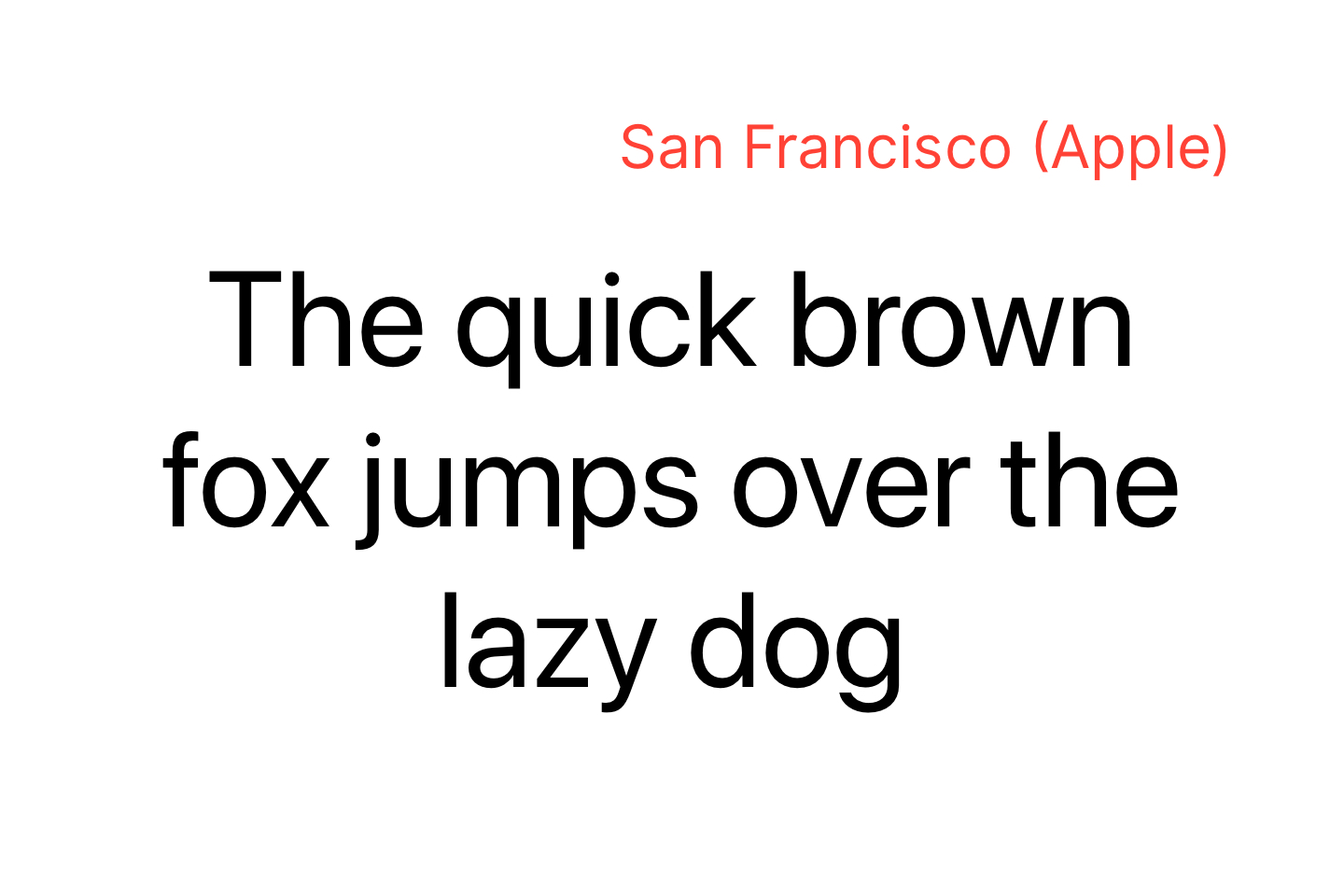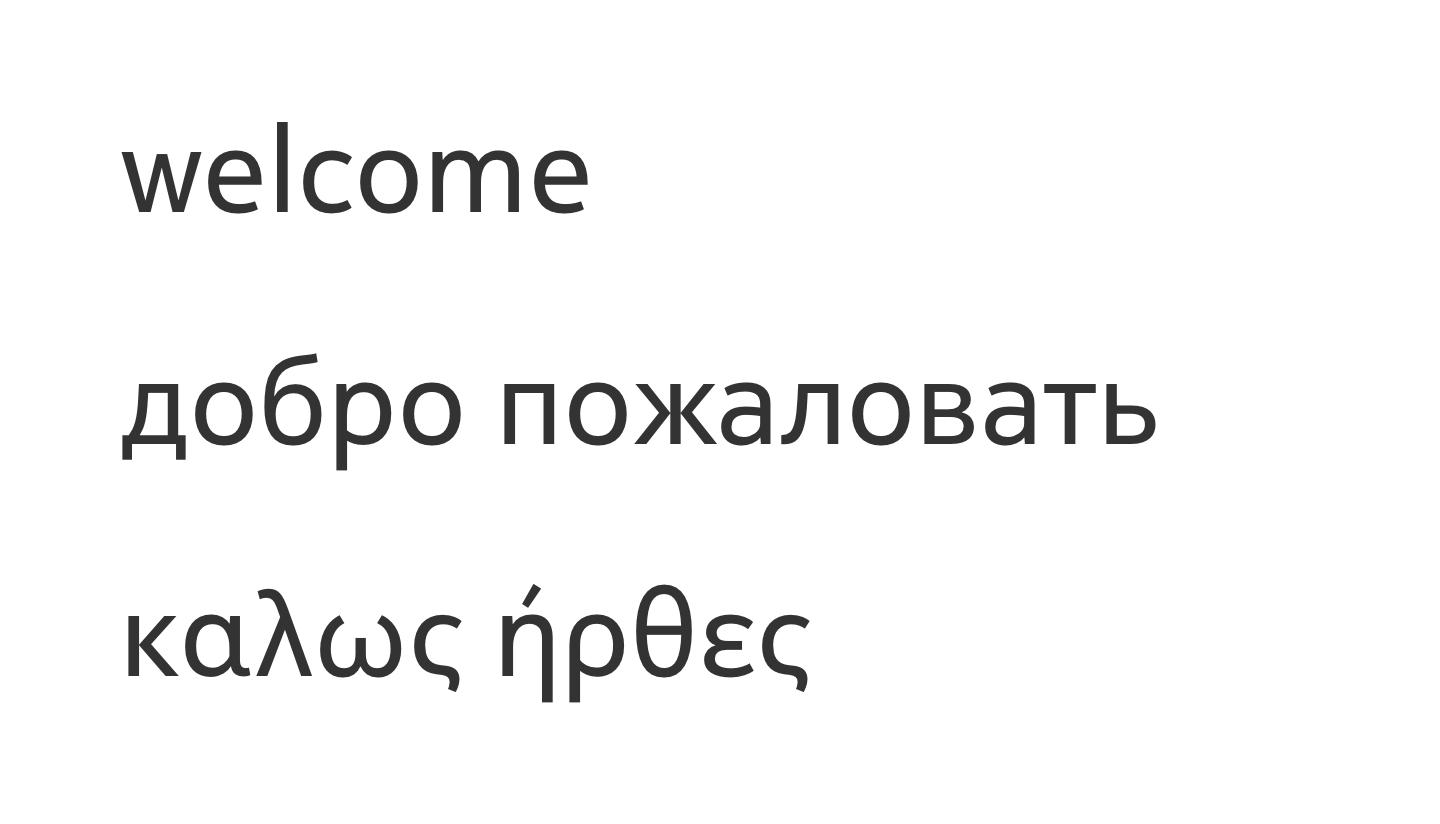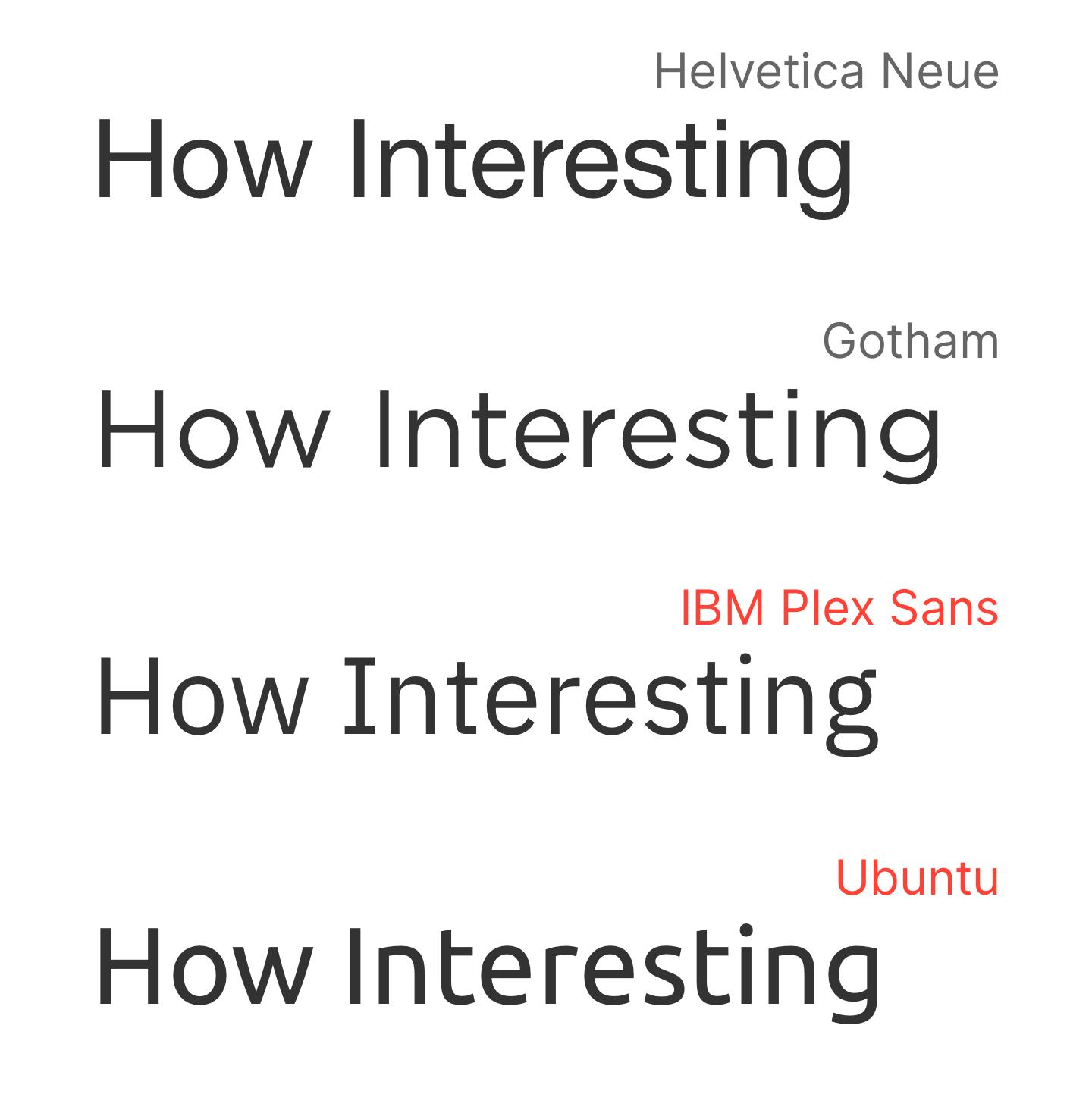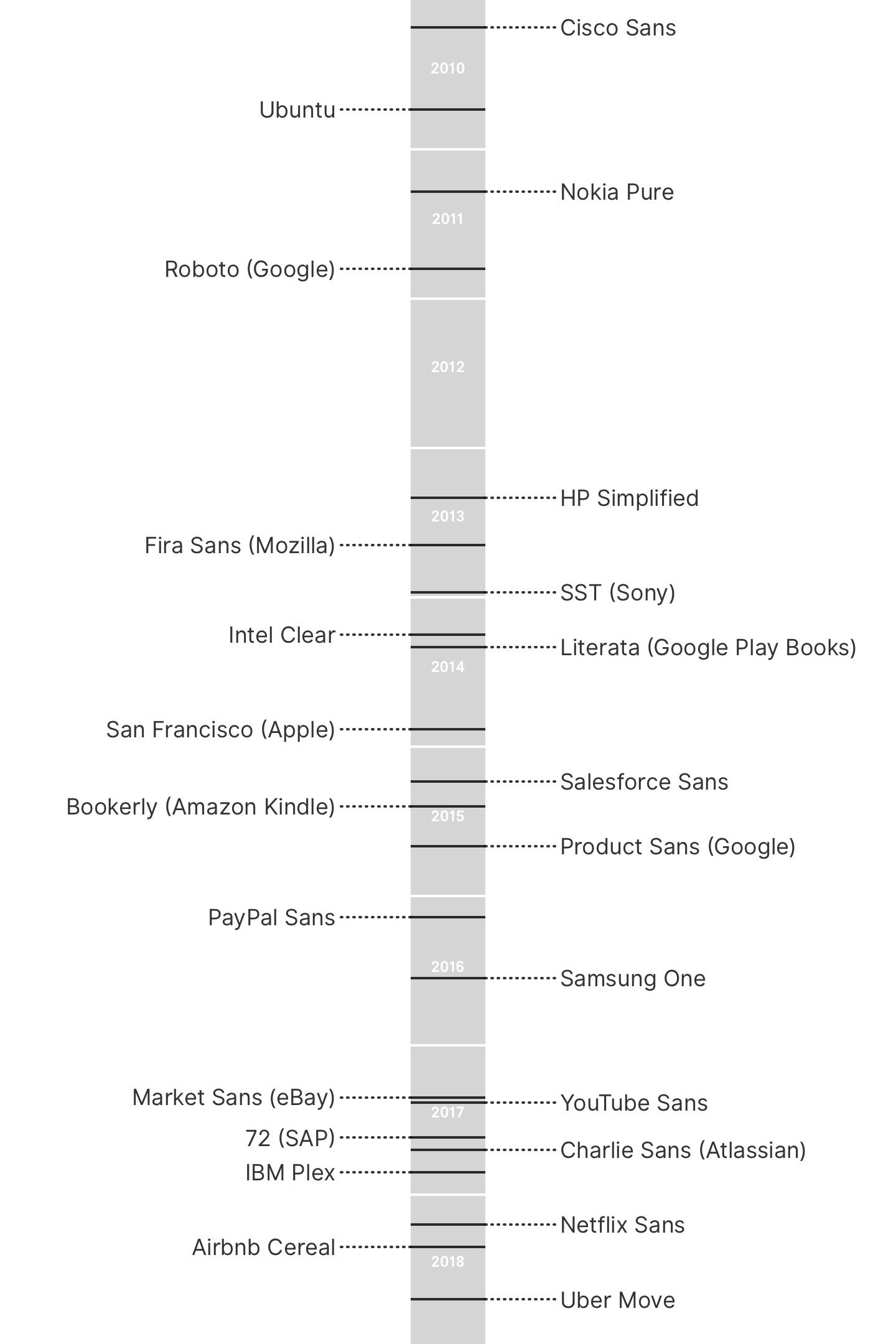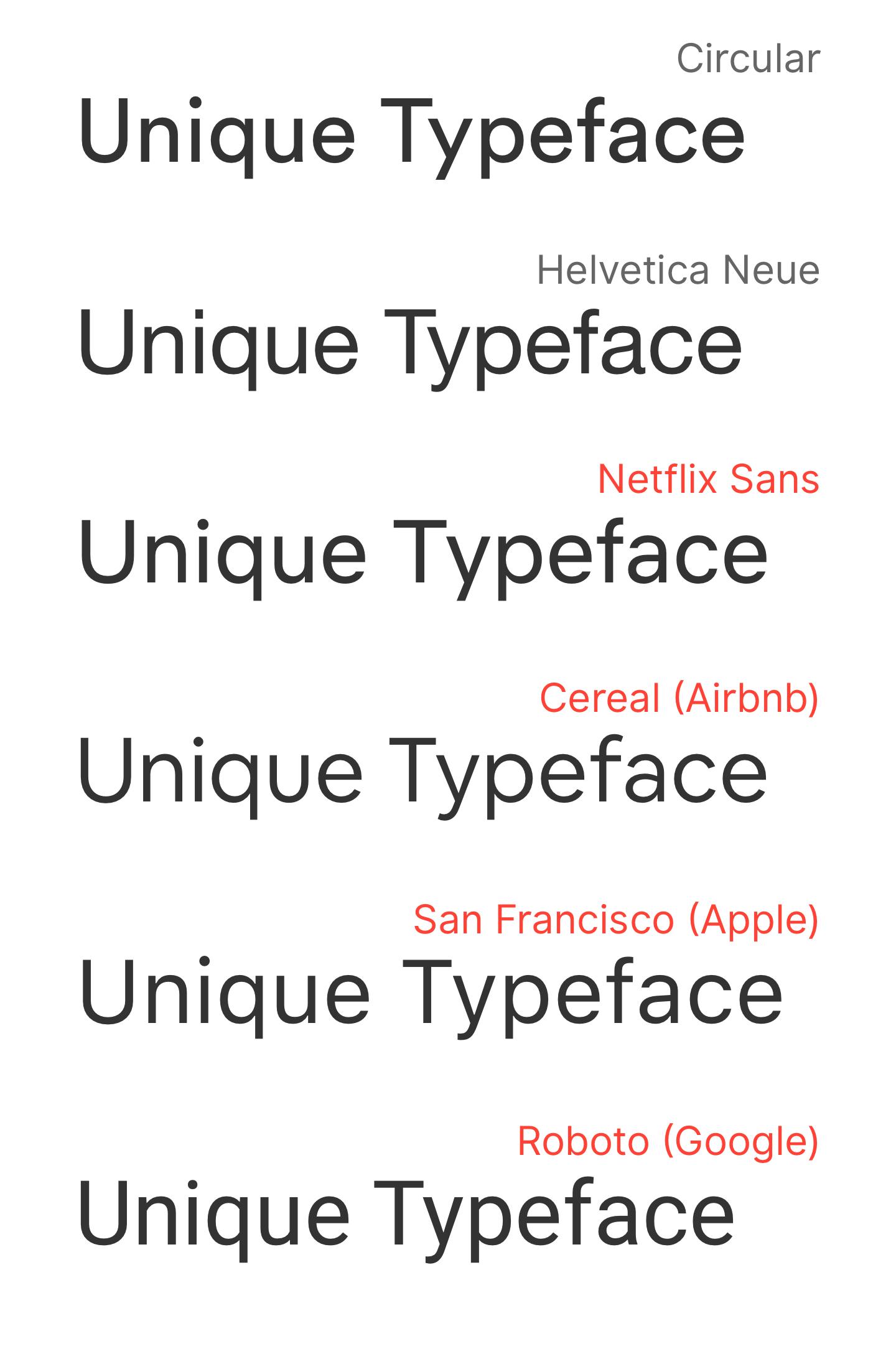
Why are tech companies making custom typefaces?
More than graphic design, typography is an expression of technology, precision and good order. Typography is no longer concerned with meeting the lofty and difficult demands of art but with satisfying, formally and functionally, the everyday requirements of a craft.
― Emil Ruder[1]
For most of the last century, corporations have licensed their corporate typefaces from type foundries. Even as typesetting technology changed and the number of typefaces proliferated, custom typography was quite rare.
The idea of commissioning or creating a custom typeface for exclusive use by a single company or brand is relatively new in the history of typography. Erik Spiekermann argues that this is a result of the personal computer.
While it was possible, financially and technically, to design and produce a typeface exclusively for the use of one company, it was not really feasible. Once, however, the same personal computer that was used to design typefaces and produce fonts was also used as the main communication tool inside companies, it became easier to convince marketing and technical people alike that fonts were meant for more than the occasional campaign headline, and easier to implement than new versions of Windows.
― Erik Spiekermann
Traditional businesses have been doing this for decades, but there has been a growing trend among technology companies. It all started with the larger companies such as Apple, Microsoft and Nokia, but in the last decade has spread to smaller companies as well.
Why does this matter?
Though typography as we know it is centuries old, it has only increased in importance with time. It’s integral to how we communicate with each other, even today, where printed media has given way to digital interfaces. In fact, you can argue that UI is mostly typography.
Airbnb.com with and without type Typography is essential to web interfaces
Also, as Marshall McLuhan said, “the medium is the message”. For most communication, typography is that medium. In the increasingly branded world we live in today, where we interact with brands nearly every second of our lives, typography has become an important facet of brand.
Corporations and brands speak to their customers, employees, the press. To the public, in public. They do so mainly in writing, regardless of the medium. Even a TV spot cannot exist without showing the brand name or the claim: both are writing. In other words, most of what we know about a brand or a product is what we’ve read about it.
― Erik Spiekermann
As technology companies realize the importance of brand and the impact it has on their business, they naturally pay closer attention to typography.
Why go custom?
Why do we see this trend of companies investing the enormous amount of time and money required to develop custom typefaces?
animation of custom typefaces
A selection of technology companies’ custom typefaces
The most obvious reason is cost. Developing a custom typeface can eliminate the recurring licensing fees that must be paid to foundries. IBM [4] and Netflix [5] claim to save millions of dollars per year by switching from Helvetica to IBM Plex and Gotham to Netflix Sans, respectively.
Another reason is support for multiple languages. Many companies in western countries may start by using a typeface that only covers Latin script. As their userbase or business footprint grows geographically, they’ll have to start supporting other scripts. Some companies get past this hurdle by licensing other typefaces that cover those target scripts. However, that can come with even more licensing costs, as Intel experienced before it commissioned Dalton Maag to create Clear Sans:
Additionally, because the fonts only covered the Latin script, alternative fonts had to be used for communication in languages beyond those of Western Europe, such as Greek, Russian, Chinese, and Arabic, locking Intel into expensive annual licensing fees for multiple lookalike fonts that were, nonetheless not exclusive to them.
Some companies will commission a type foundry to expand one of their typefaces to support additional scripts. However, this begs the question, “if you are commissioning additional scripts, why not commission a completely custom typeface?”
Nokia Pure
Just 3 of the 19 scripts that Nokia Pure supports
In the second half of the twentieth century, typographers started noticing that typefaces suited for typesetting technology of the time like hot metal typesetting and phototypesetting, weren’t suited to the computer screen. These typefaces that were made for older non-digital technologies simply didn’t render very well on pixel-based screens.
In order to adapt to displaying type on computer screens, existing typefaces were modified and entirely new typefaces were created. It’s this logic that Intel used in commissioning Intel Clear.